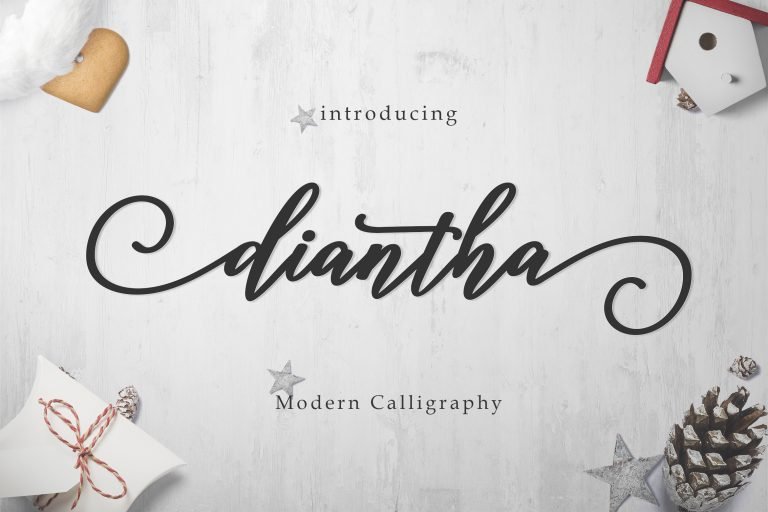
Diantha Script Font
Introducing Diantha Font! Diantha designed and shared by Takiy. Diantha font with new style, this font will perfect for many different project ex: quotes, logo, blog header, poster, banding, fashion, apparel, letter, invitation, stationery, etc…